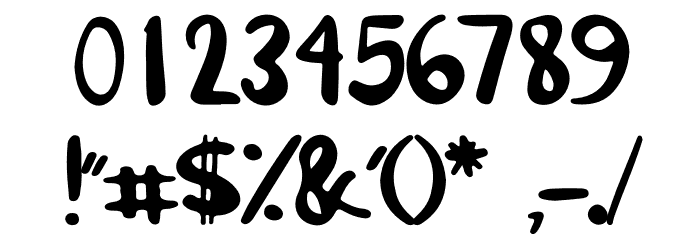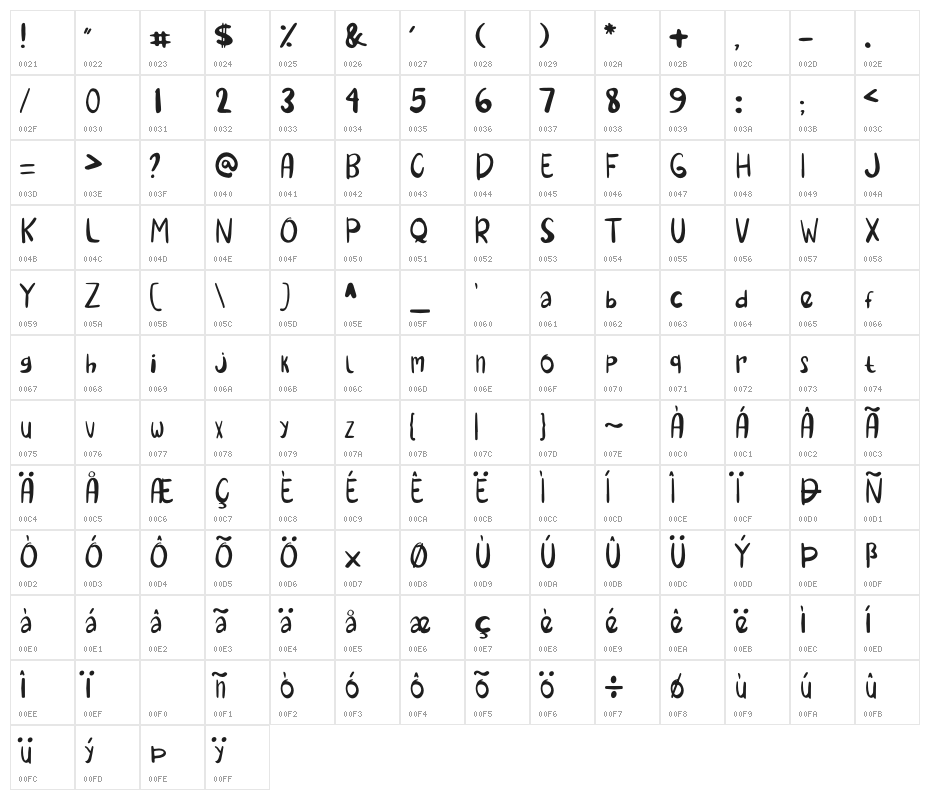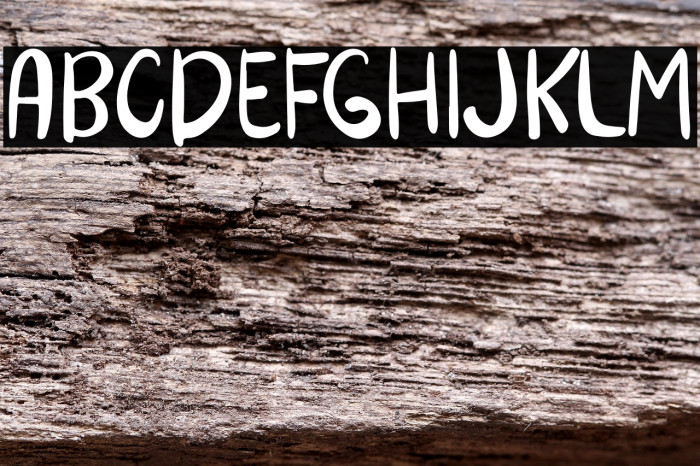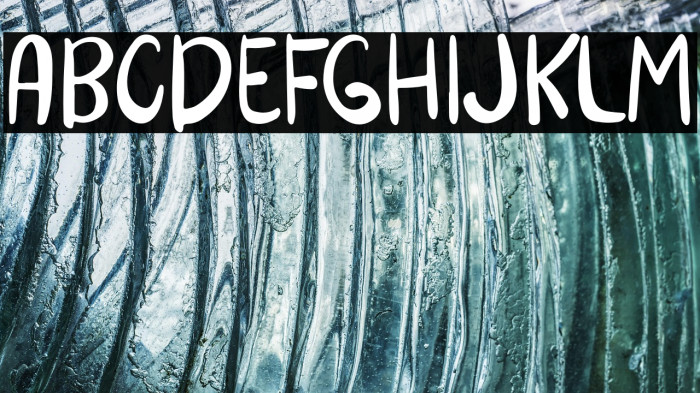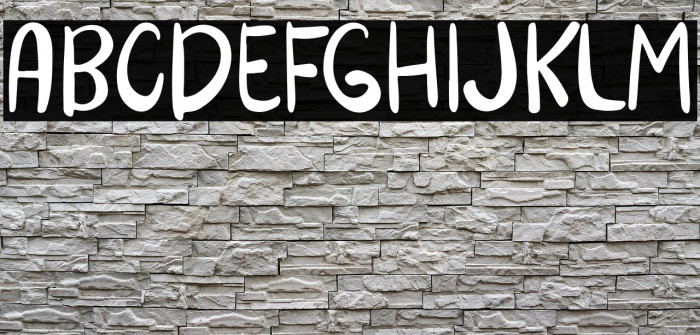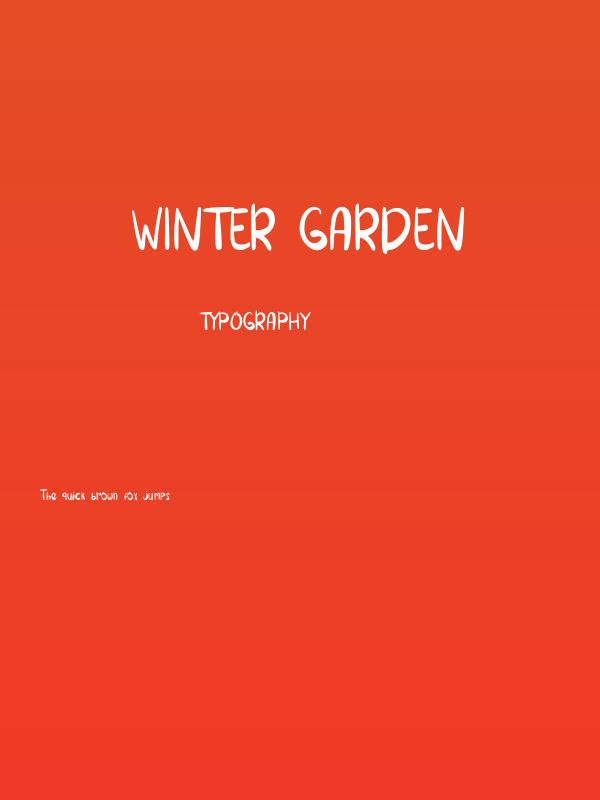
Winter Garden Font
Winter Garden Description
This font features a playful and whimsical style with a hand-drawn appearance. The characters are slightly irregular, adding a unique and informal touch. The uppercase letters are bold and rounded, while the lowercase letters maintain a consistent style with a slightly narrower form. Numbers and special characters follow the same playful design, making the font versatile for creative projects. The overall look is casual and friendly, perfect for adding a personal touch to any design.
| Proposed Projects | Ideal for children's books, greeting cards, playful branding, and casual invitations. |